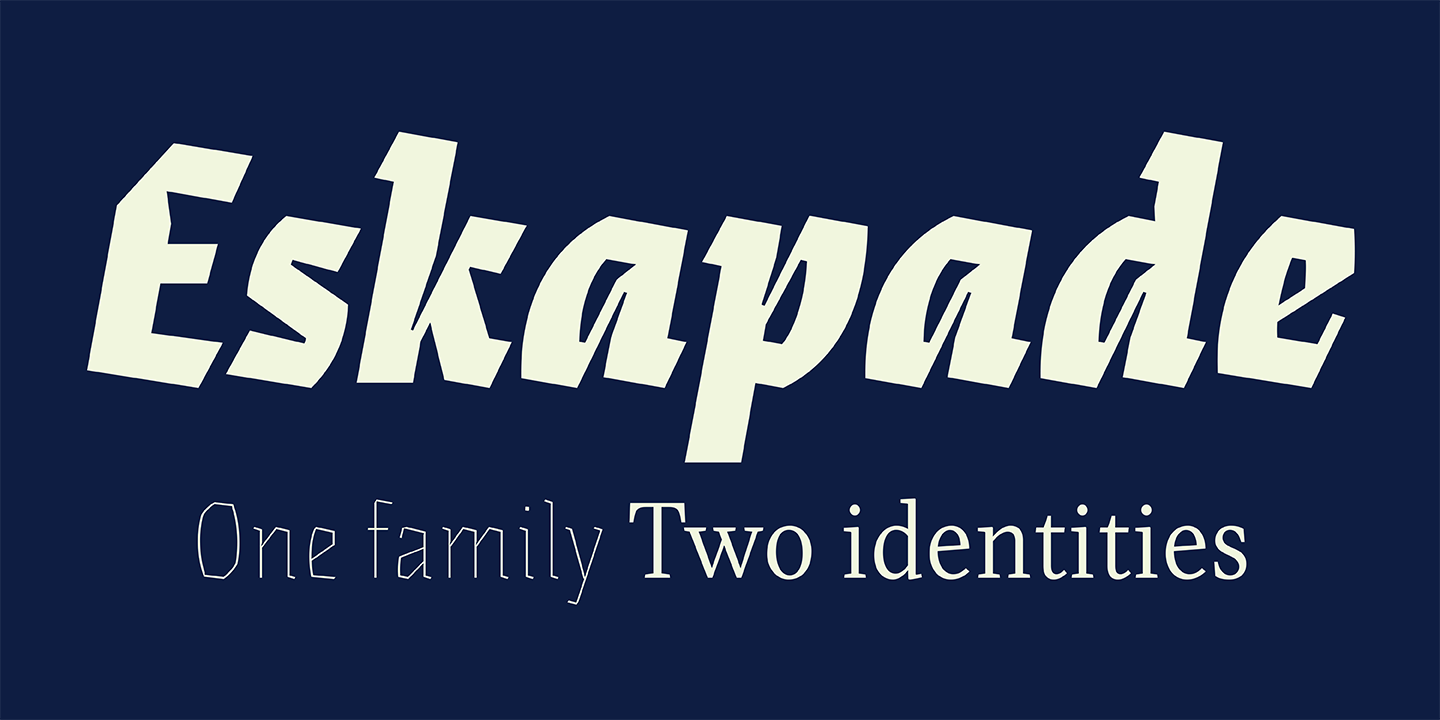
Eskapade Font excels in diverse design applications including creative agency branding, artistic poster designs, contemporary magazine headers, innovative website layouts, modern book covers, stylish packaging solutions, trendy social media graphics, cutting-edge advertising campaigns, and dynamic logo designs. Its distinctive character makes it perfect for projects requiring both creativity and professional appeal across digital and print mediums.
What makes Eskapade Font exciting is its bold artistic expression combined with exceptional functionality. This innovative typeface pushes creative boundaries while maintaining practical usability, offering designers a unique tool for creating memorable visual experiences. The font's dynamic personality captures attention instantly, making it ideal for brands looking to differentiate themselves in competitive markets. Its carefully crafted letterforms demonstrate remarkable attention to detail and artistic sophistication.
Eskapade Font features a comprehensive family structure including Regular, Light, Medium, Bold, Black, Italic variants, Condensed versions, and Extended styles. Each family member preserves the core design DNA while offering different weights and characteristics to meet various creative demands. The extensive range provides designers with complete typographic flexibility for complex projects requiring multiple hierarchy levels and diverse visual treatments.
Design professionals seeking innovative typography solutions will find Eskapade Font Free Download to be an exceptional addition to their creative toolkit. This typeface demonstrates remarkable versatility in both large display applications and smaller text implementations, ensuring consistent visual impact across all project scales. Whether developing brand identities for creative studios, designing editorial layouts for lifestyle publications, or creating engaging digital interfaces, this font consistently delivers outstanding aesthetic results.
The Eskapade Font represents a perfect balance between artistic innovation and practical application. Its unique character shapes and distinctive features create strong brand recognition while maintaining excellent readability across various platforms and sizes. The font's advanced technical specifications include comprehensive language support, extensive character sets, and optimized spacing that ensures professional results in any application.
Creative agencies and independent designers particularly appreciate Eskapade Font for its ability to communicate innovation and creativity without compromising professionalism. The typeface works exceptionally well for technology startups, creative consultancies, design studios, entertainment brands, and modern retail concepts. Its contemporary appeal resonates with forward-thinking audiences while its solid construction ensures reliable performance across all media formats.
The versatile nature of Eskapade Font makes it particularly valuable for responsive design systems and multi-platform brand implementations. Its distinctive character creates memorable visual identity while adapting seamlessly to various design contexts, from large-scale outdoor advertising to detailed mobile applications, ensuring consistent brand communication across all customer interactions and touchpoints.